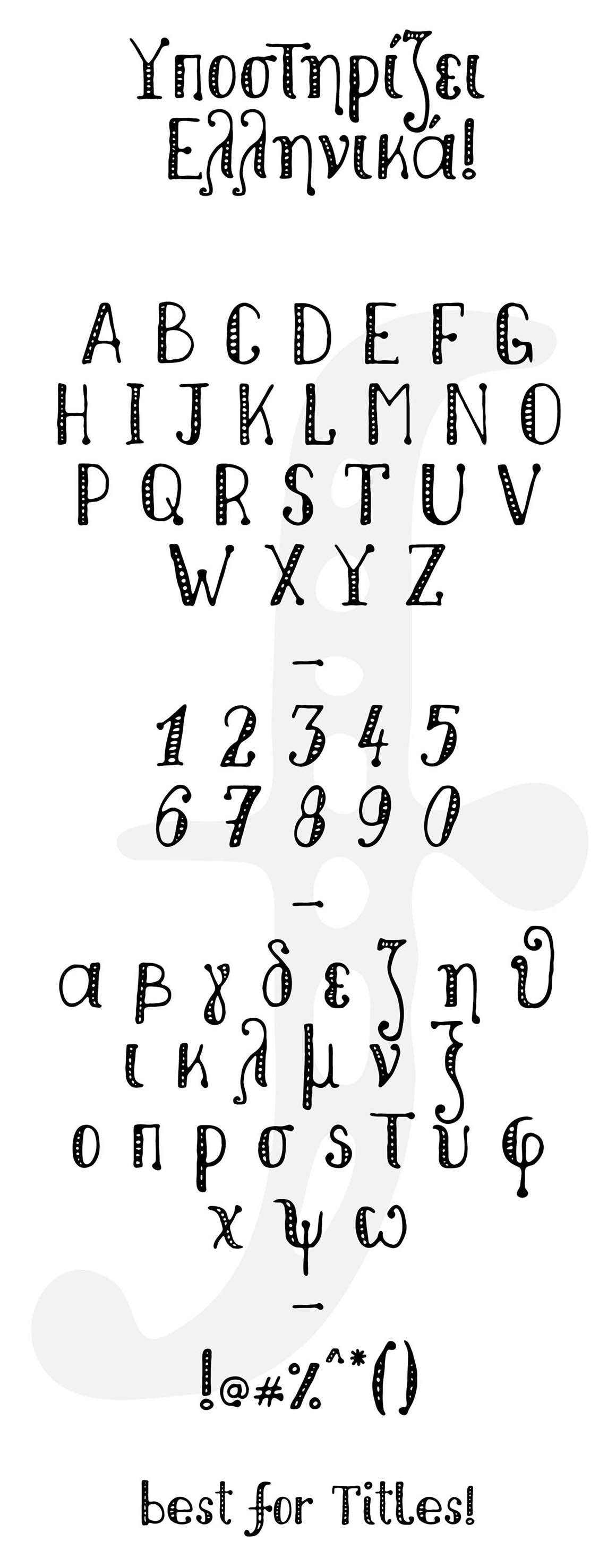
Nikolaidis Hand – Free Font
This unique & creative handdrawn font is from George Nikolaidis. Great for your new creative projects. Download and enjoy ;)